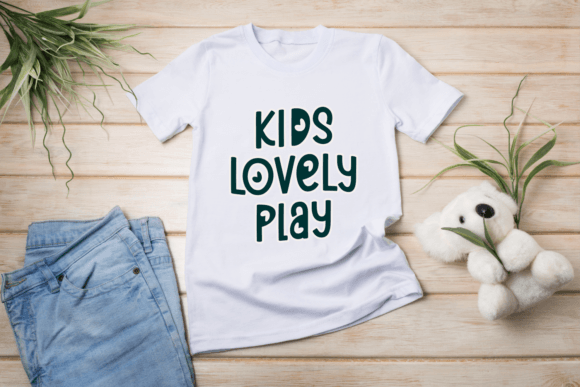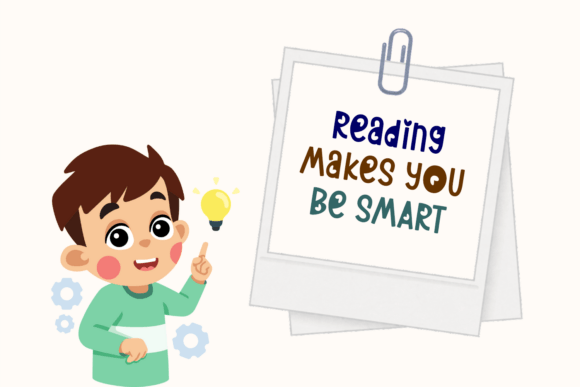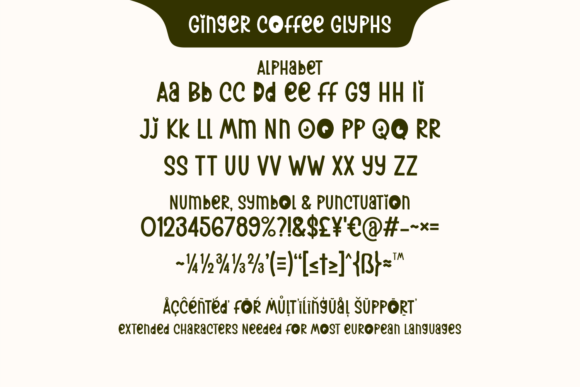
Ginger Coffee Font: The Whimsical Charm for Your Designs
Are you looking for a typeface that can add a touch of magic to your designs? Look no further than the Ginger Coffee Font, a delightful and captivating font that is sure to amplify the beauty of your work. With its curved nodes artistically crafted to evoke emotion, this font is poised to captivate and charm your audience with its appealing aesthetic and playful personality.
The Unique Features of Ginger Coffee Font
So, what makes the Ginger Coffee Font so special? For starters, its curved nodes give it a unique and whimsical charm that is hard to find in other typefaces. These curved nodes are carefully crafted to evoke emotion, adding a flush of excitement to your work. Whether you’re creating eye-catching brochures, dynamic magazines, or edgy apparel designs, this font is sure to make your designs stand out from the crowd.
One of the best things about the Ginger Coffee Font is its versatility. This font can be used in a wide range of design projects, from print to digital. Whether you’re creating a logo, a brochure, or a social media post, this font is sure to add a touch of magic to your work. Its playful personality and appealing aesthetic make it perfect for designers who want to create designs that are both fun and engaging.
Why Designers Love Ginger Coffee Font
So, why do designers love the Ginger Coffee Font? For one, it’s a universally adored font that adds a magical touch to every design. Its unique and whimsical charm makes it perfect for designers who want to create designs that stand out from the crowd. Additionally, its versatility and wide range of uses make it a font that designers can rely on for all their design needs.
The Ginger Coffee Font is perfect for various design projects, including:
• Brochures: Create eye-catching brochures that showcase your products or services in a unique and engaging way.
• Magazines: Add a touch of magic to your magazine designs with the Ginger Coffee Font’s playful personality and appealing aesthetic.
• Apparel Designs: Create edgy and stylish apparel designs that are sure to turn heads.
• Logos: Use the Ginger Coffee Font to create a unique and memorable logo that represents your brand.
• Social Media Posts: Add a touch of whimsy to your social media posts with the Ginger Coffee Font’s curved nodes and playful personality.
Here are some tips and tricks for getting the most out of the Ginger Coffee Font:
• Experiment with different font sizes: The Ginger Coffee Font looks great in a variety of font sizes, from small to large.
• Pair it with other fonts: The Ginger Coffee Font pairs well with other fonts, including serif and sans-serif fonts.
• Use it in combination with images: The Ginger Coffee Font looks great in combination with images, especially when used as a title or heading.
In conclusion, the Ginger Coffee Font is a delightful and captivating typeface that is sure to amplify the beauty of your designs. Its unique and whimsical charm, versatility, and wide range of uses make it a font that designers can rely on for all their design needs. Whether you’re creating eye-catching brochures, dynamic magazines, or edgy apparel designs, the Ginger Coffee Font is poised to captivate and charm your audience with its appealing aesthetic and playful personality.